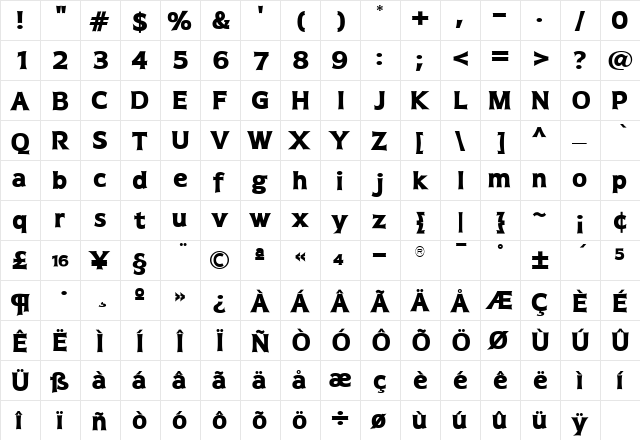
TFDierama Extrabold
| Foundry | J. Treacy, Treacyfaces,Inc |
TFDierama takes a measured approach to typography — its balanced proportions and neutral character make it a reliable workhorse for both digital and print work. Its bold stroke weight gives it real presence on the page.